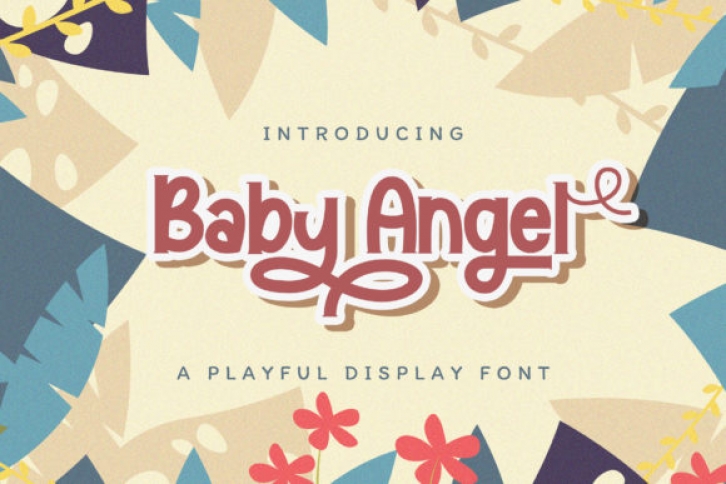
Baby Angel is a sweet and friendly display font. Incredibly versatile, this font fits a wide pool of designs, elevating them to the highest levels. Add this font to your favorite creative ideas and notice how it makes them come alive!